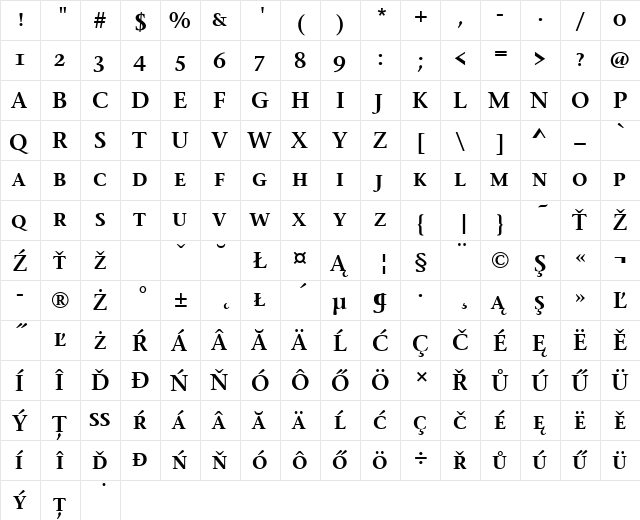
StoneSerSCItcTEESem Regular Font Preview
StoneSerSCItcTEESem Regular
Design Context for StoneSerSCItcTEESem Typeface
StoneSerSCItcTEESem offers clean, dependable letterforms without strong stylistic allegiance, making it a practical choice for designers who need flexibility.
Pro Tip: Use StoneSerSCItcTEESem in both headline and body roles to test its range before committing to a single application.